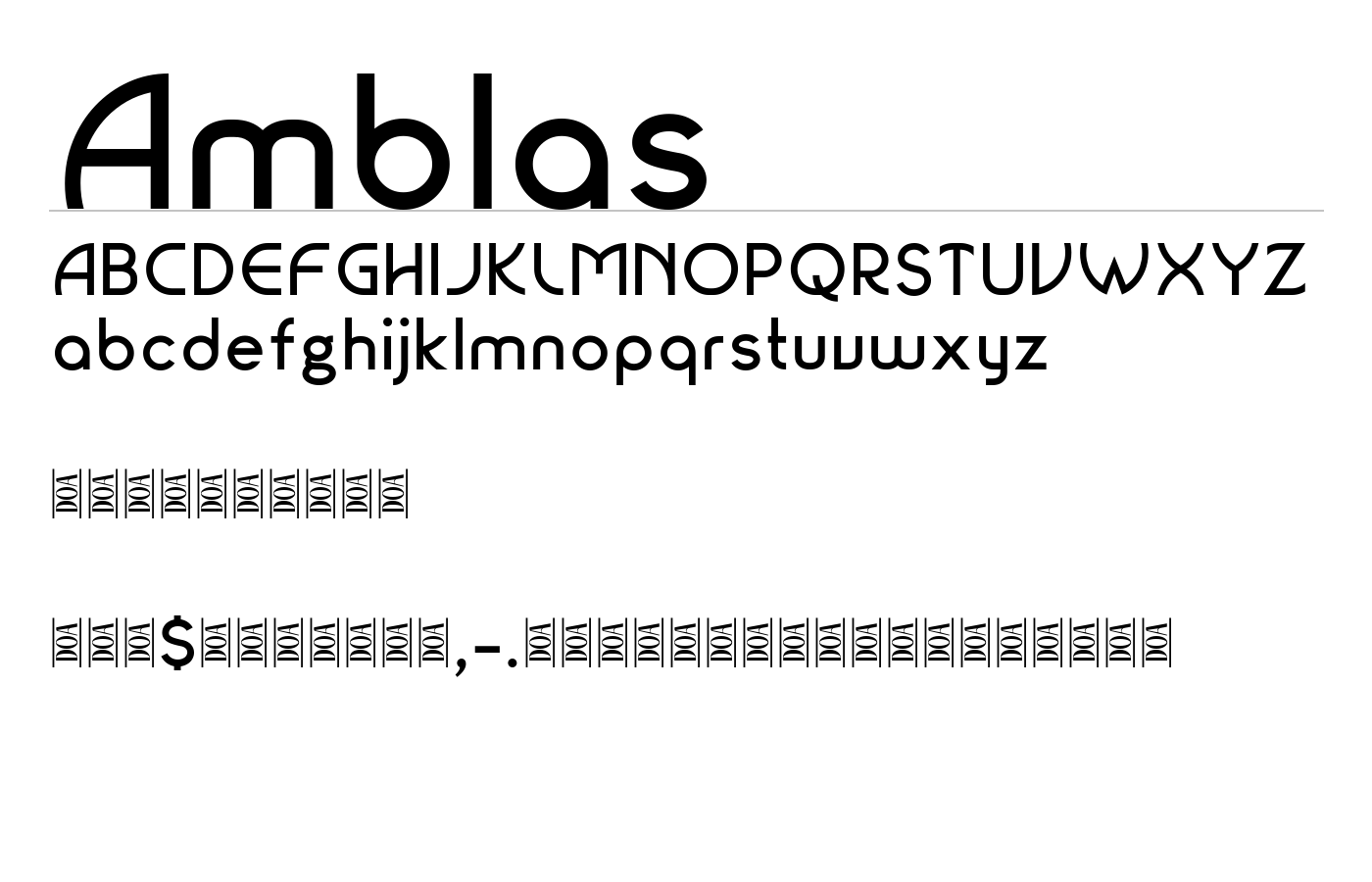
Amblas is a sleek, modern sans-serif font with a geometric and slightly futuristic feel. It features smooth, rounded letterforms with a moderate x-height and consistent stroke weight, making it clean and easy to read while adding a distinctive touch with unique character shapes. This font works well for branding, headlines, and editorial design where a contemporary and stylish look is desired.
Amblas Font